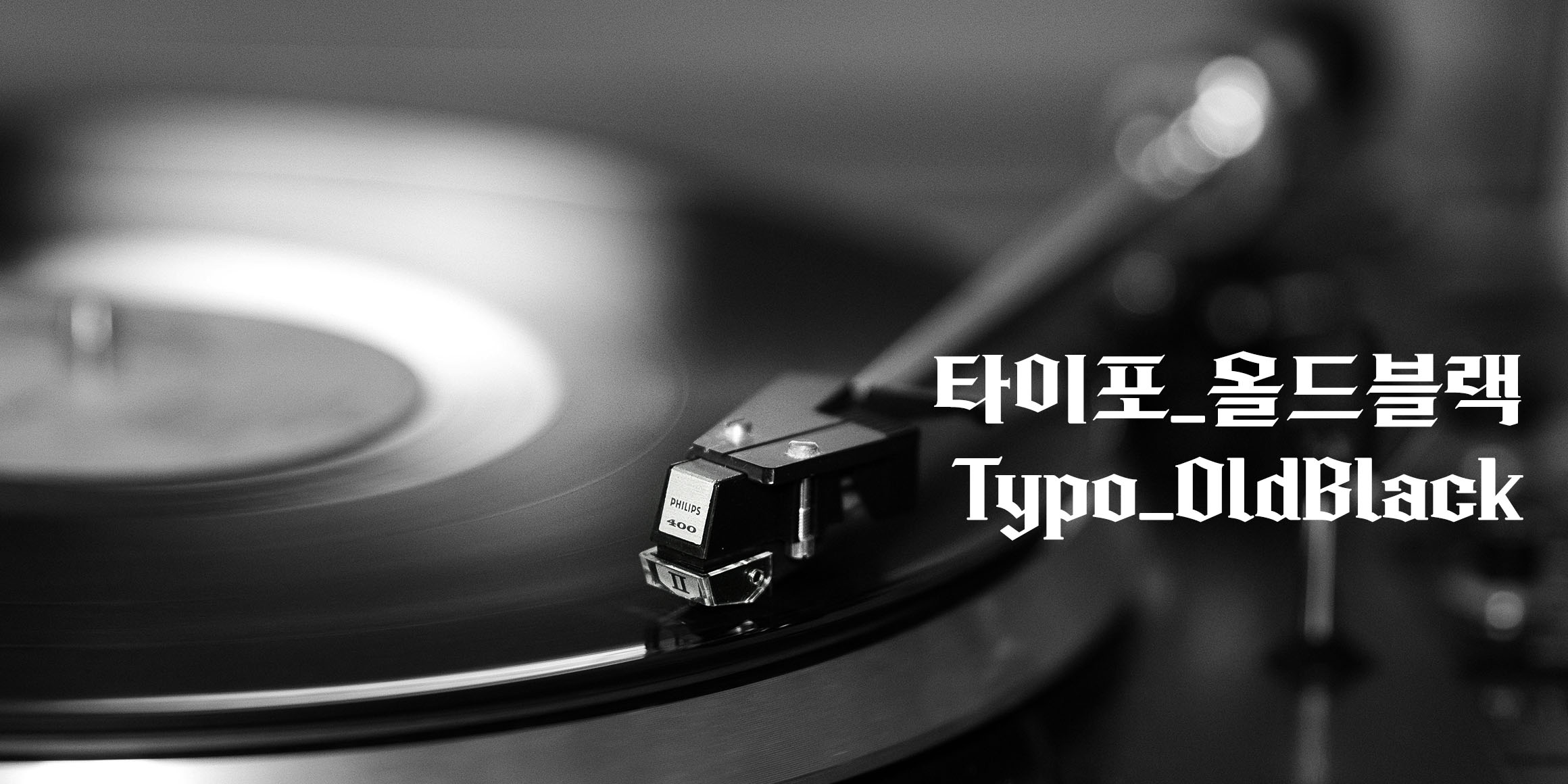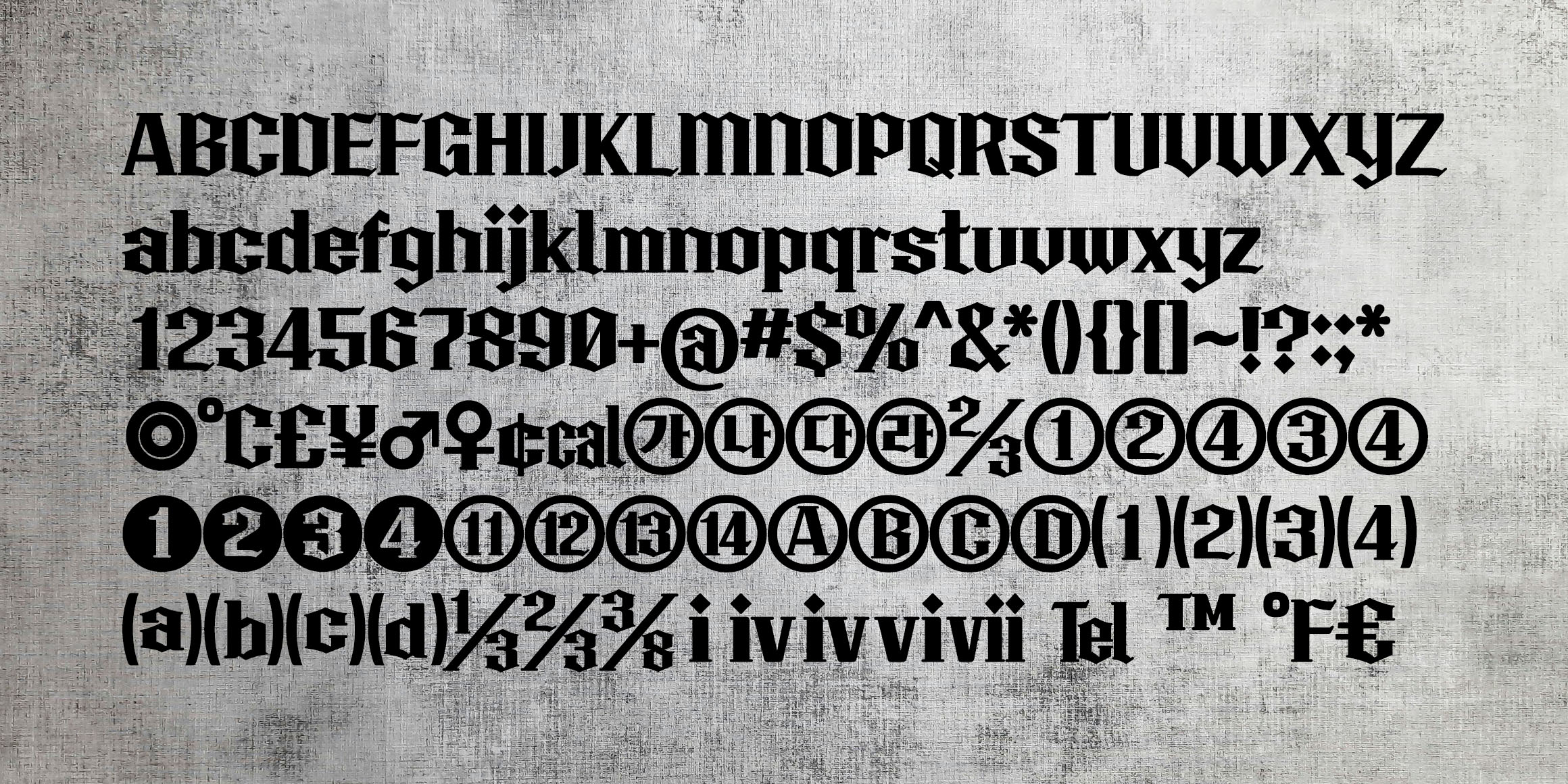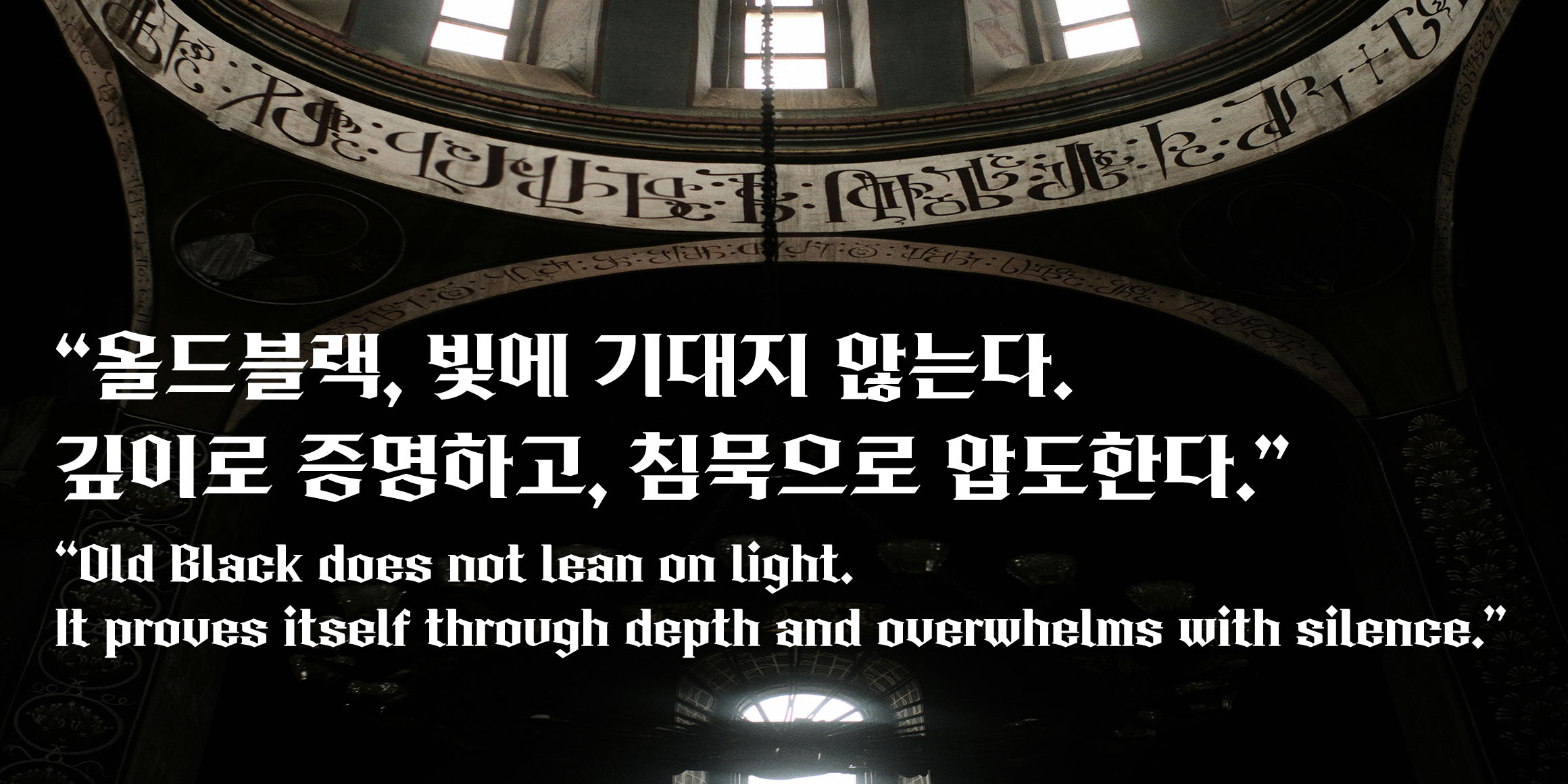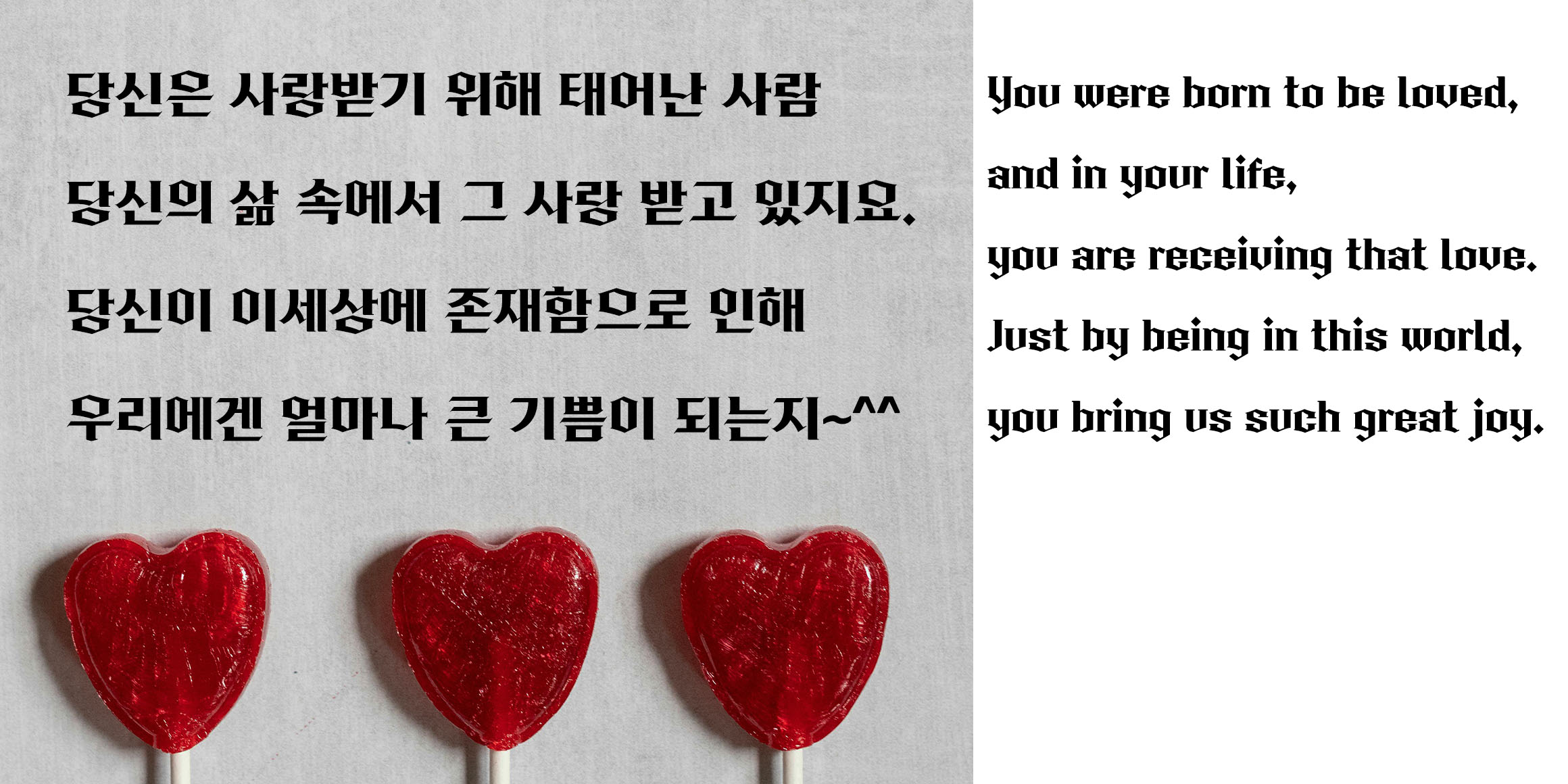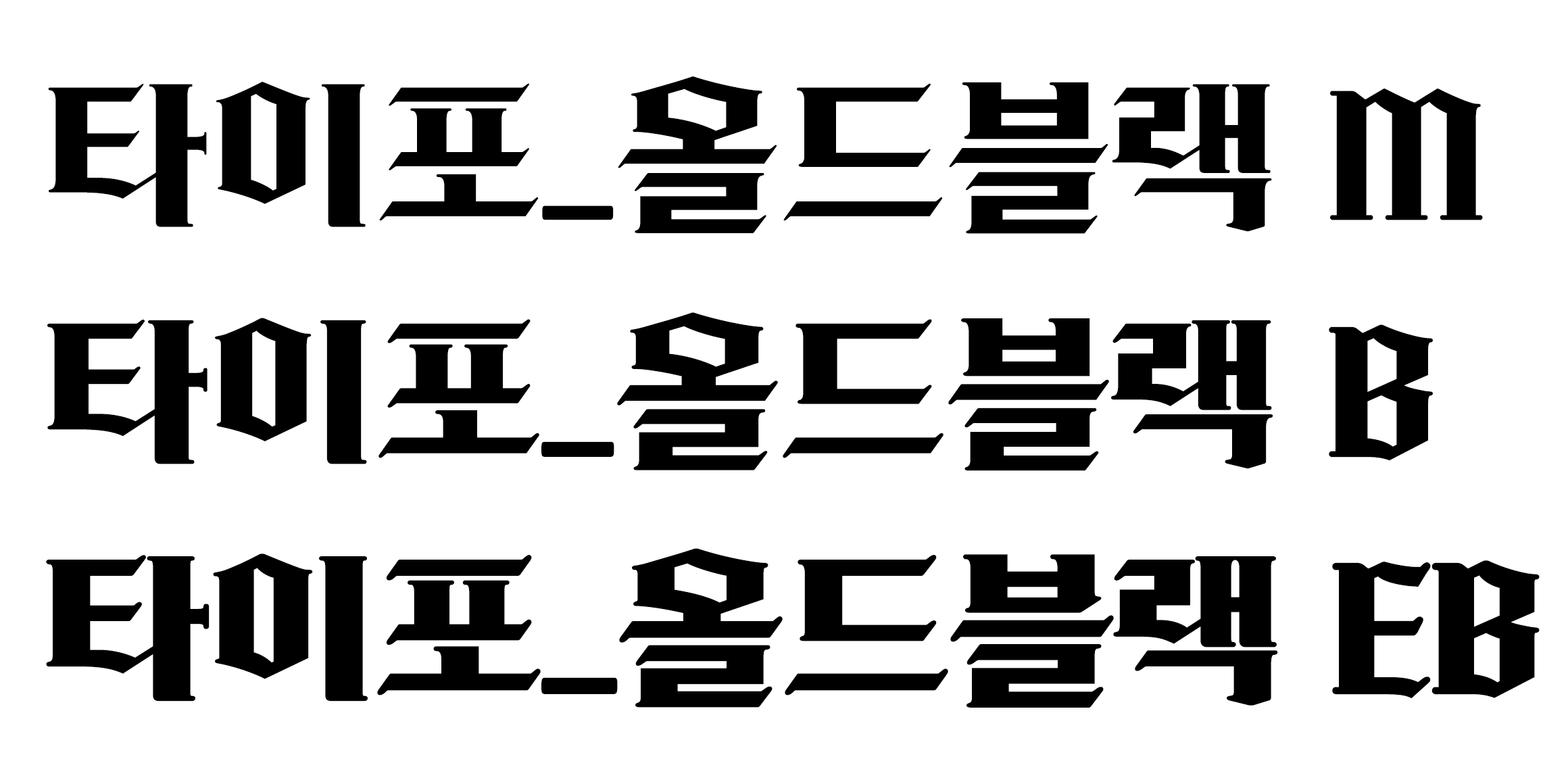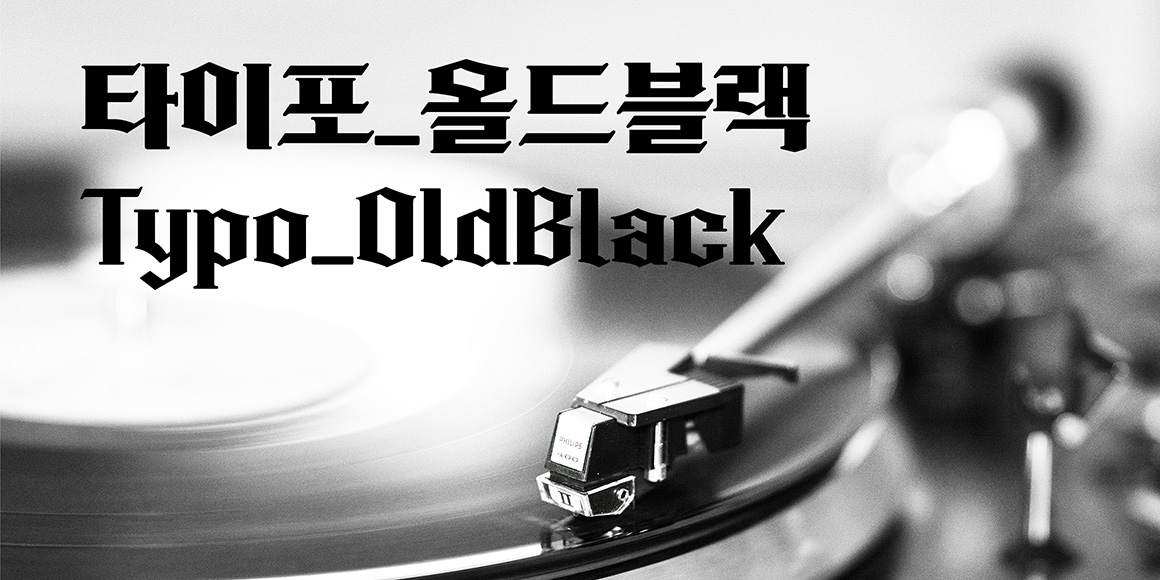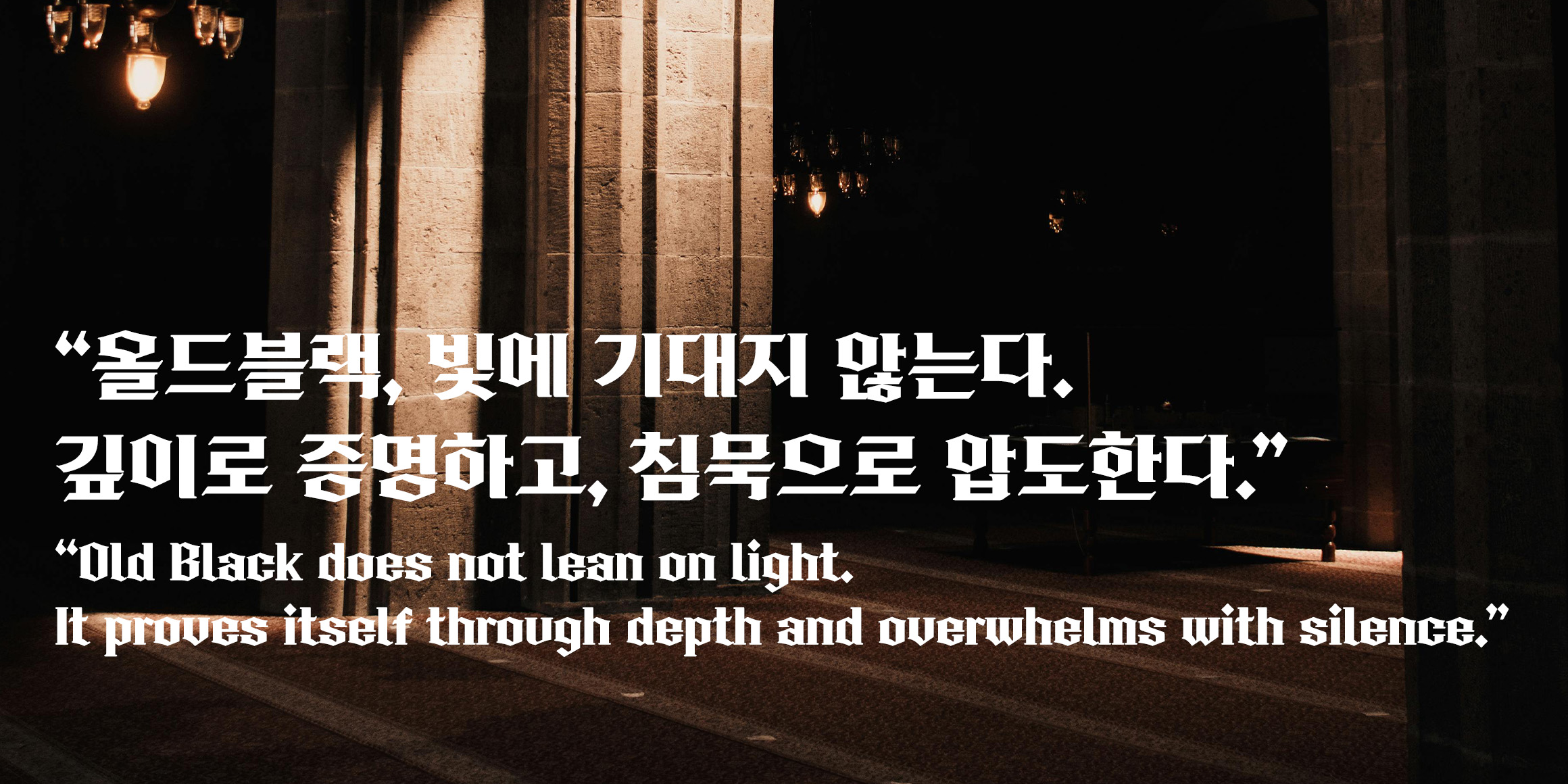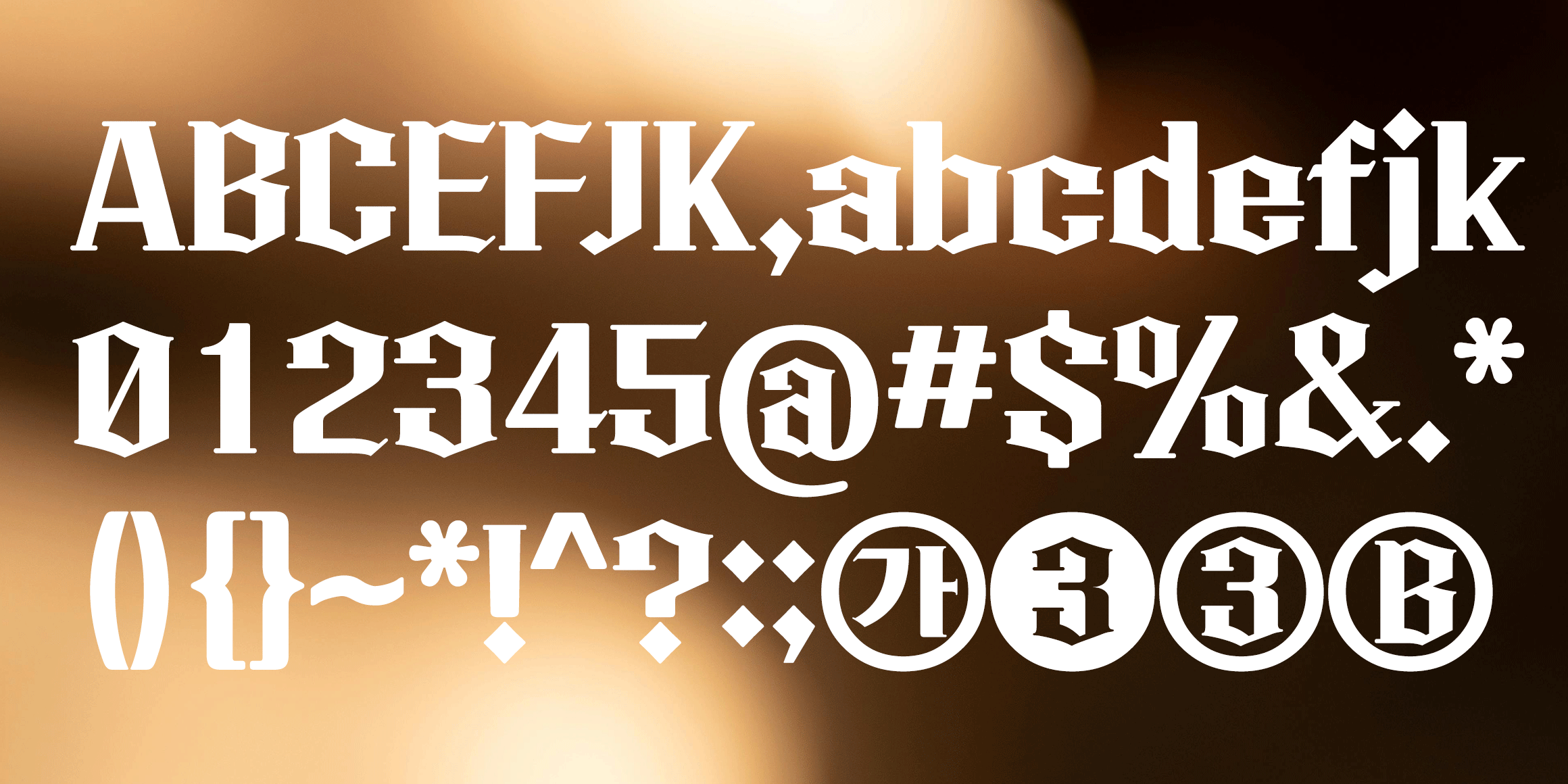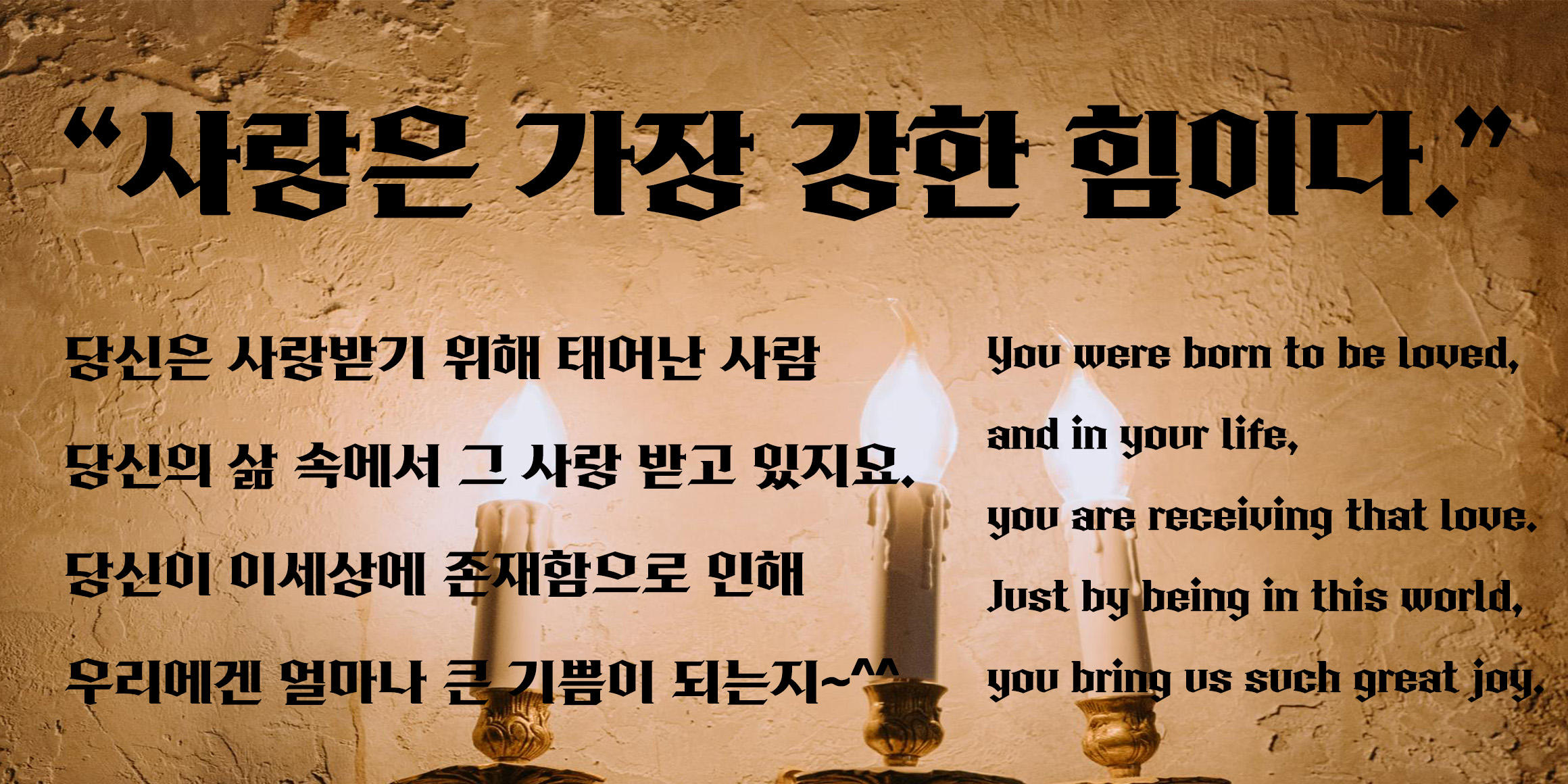
Typo_OldBlack
TypoDesignLab
is a typeface developed with inspiration from Blackletter.
While the earlier typeface was an experimental attempt to combine the atmosphere of Blackletter with Hangul, focuses on practicality and improved readability within a Blackletter style.
Excessive ornamentation has been removed, resulting in a restrained and well-balanced form. The design maintains the distinctive mood of Blackletter while offering a clearer and more comfortable reading experience.
With its refined yet distinctive character, this typeface can create a strong visual impression when used for mystery or fantasy novel titles, street signage, broadcast titles and captions, as well as European-inspired brand packaging and logos.